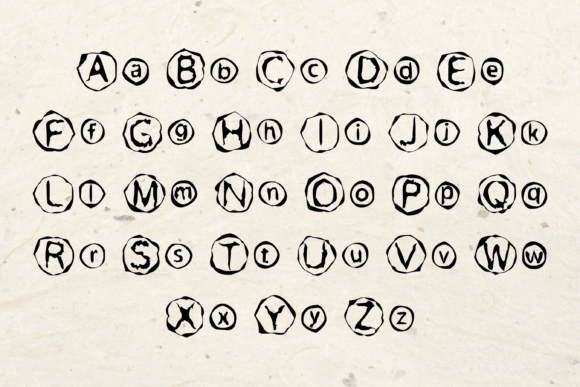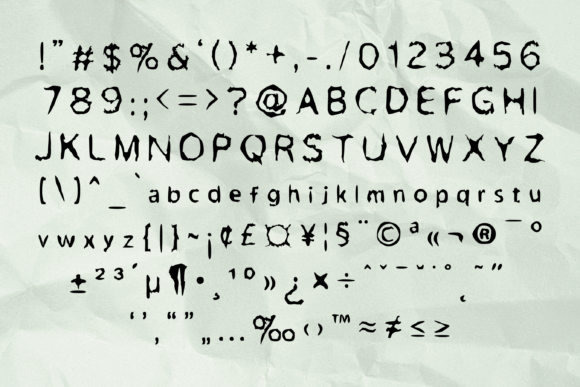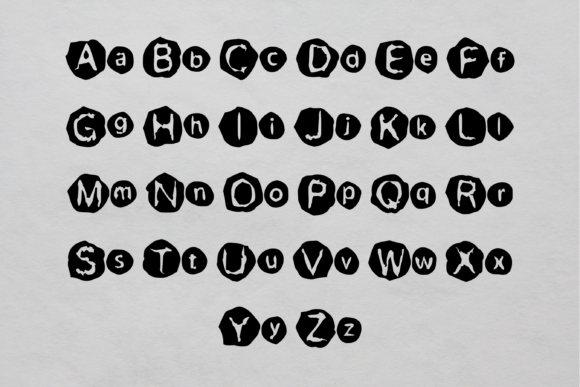
Unleash the Horror with Dead Ringer Font: The Ultimate Display for Spooky Designs
Are you a designer or crafter looking for a font that will add a touch of horror and spookiness to your designs? Look no further than the Dead Ringer Font, a unique and creepy display font that’s perfect for all your Halloween or horror-themed designs. In this article, we’ll dive into the world of Dead Ringer Font, exploring its features, uses, and benefits, as well as provide tips and inspiration for incorporating it into your designs.
What is Dead Ringer Font?
Dead Ringer Font is a horror display font that exudes a creepy and spooky vibe, making it an ideal choice for designers and crafters who want to create eerie and unsettling designs. With its bold and distressed texture, this font is sure to grab attention and leave a lasting impression on your audience.
Key Features of Dead Ringer Font
- Unique and Creepy Design: Dead Ringer Font boasts a one-of-a-kind design that’s sure to stand out from the crowd. Its creepy and spooky vibe makes it perfect for horror-themed designs.
- Distressed Texture: The font features a distressed texture that adds to its eerie and unsettling feel.
- Bold and Attention-Grabbing: Dead Ringer Font is a bold and attention-grabbing font that’s sure to make a statement in your designs.
- Perfect for Horror and Halloween Themes: Whether you’re designing for Halloween or creating a horror-themed project, Dead Ringer Font is the perfect choice.
Uses of Dead Ringer Font
Dead Ringer Font is a versatile font that can be used in a variety of design projects, including:
- Halloween and Horror-Themed Designs: Use Dead Ringer Font to create spooky and eerie designs for Halloween or horror-themed projects.
- Movie and TV Show Posters: Add a touch of horror and suspense to your movie and TV show posters with Dead Ringer Font.
- Video Game Designs: Use Dead Ringer Font to create creepy and unsettling designs for video games.
- Merchandise and Apparel: Create eye-catching merchandise and apparel with Dead Ringer Font, perfect for horror fans and enthusiasts.
Benefits of Using Dead Ringer Font
- Stand Out from the Crowd: With its unique and creepy design, Dead Ringer Font is sure to make your designs stand out from the crowd.
- Easy to Read: Despite its distressed texture, Dead Ringer Font is easy to read, making it perfect for use in a variety of design projects.
- Customizable: Dead Ringer Font can be customized to fit your design needs, allowing you to adjust the font size, color, and style to suit your project.
Tips for Using Dead Ringer Font
- Use it Sparingly: Dead Ringer Font is a bold and attention-grabbing font, so use it sparingly to avoid overwhelming your design.
- Pair it with Other Fonts: Pair Dead Ringer Font with other fonts to create a unique and visually appealing design.
Inspirational Ideas for Dead Ringer Font
- Create a Spooky Logo: Use Dead Ringer Font to create a spooky logo for a horror-themed business or organization.
- Design a Creepy Poster: Design a creepy poster for a horror movie or TV show using Dead Ringer Font.
- Make a Haunted Invitation: Create a haunted invitation for a Halloween party or horror-themed event using Dead Ringer Font.
| Font Name | Dead Ringer Font |
| Author | The Tenacious Type Studio |